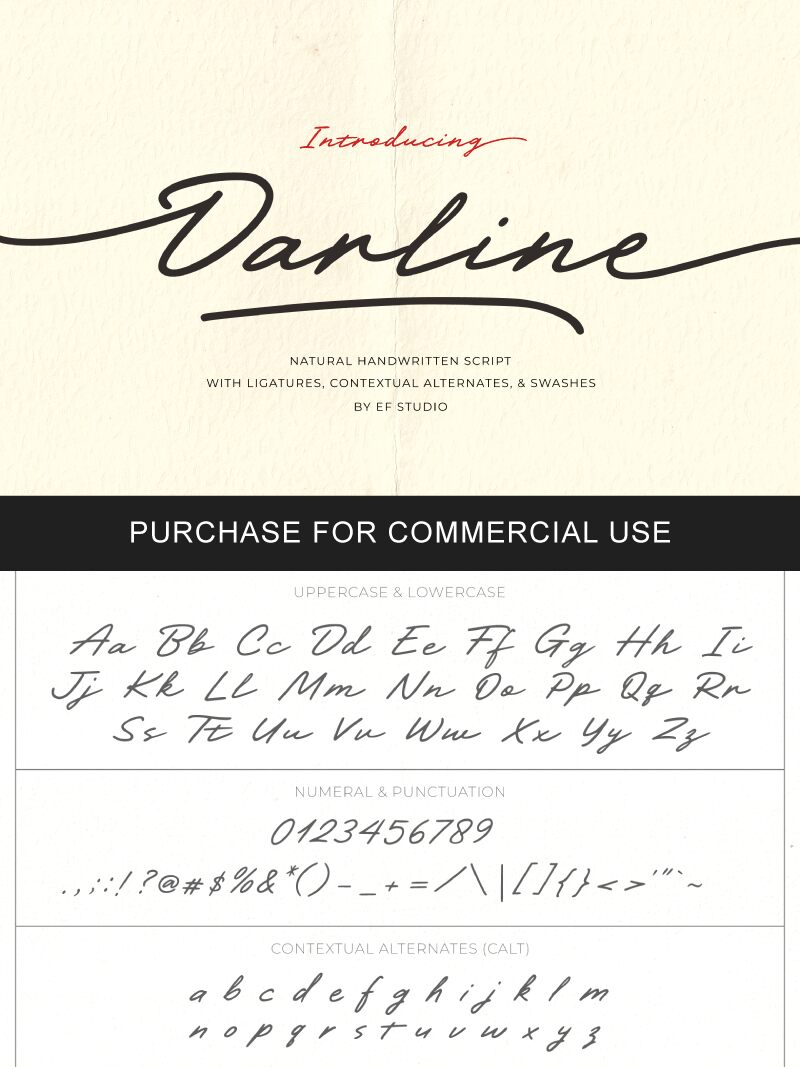
Darline font is presented by Ef Studio as a free font with a handwritten calligraphic style. Elegant with an expressive fluidity, Darline is a casual font with a natural flow. It combines the best of classic calligraphy with a contemporary flair which, when coupled with its personable charm, makes Darline the ideal choice for projects that require a little informal sophistication.
Darline expresses its beauty when used on branding projects such as headlines in publications, newspapers and magazines, a website header, or even a social media post. Keep the digits in mind once you download Darline and use it for artwork numbers, shop numbers, or house numbers.